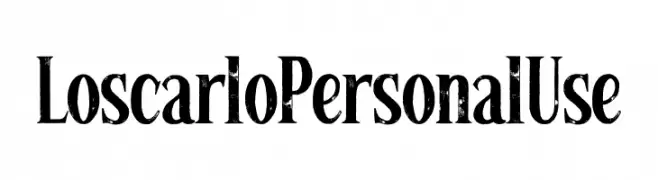
A bold, distressed font with a vintage, grunge texture.
A bold, distressed font with a vintage, grunge aesthetic.
A bold, distressed font with a vintage, rugged appearance.